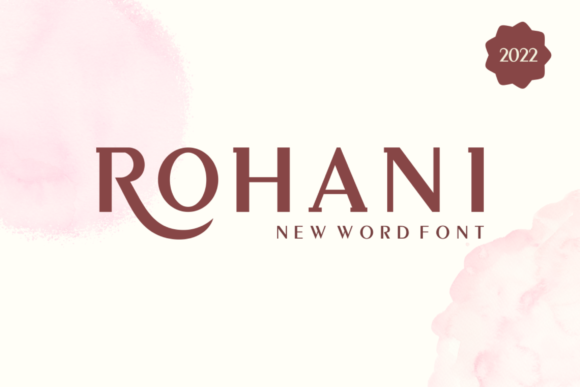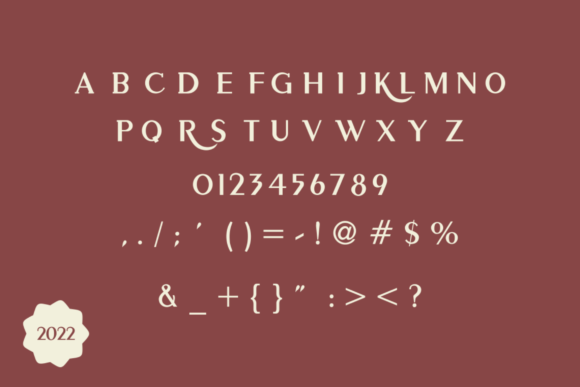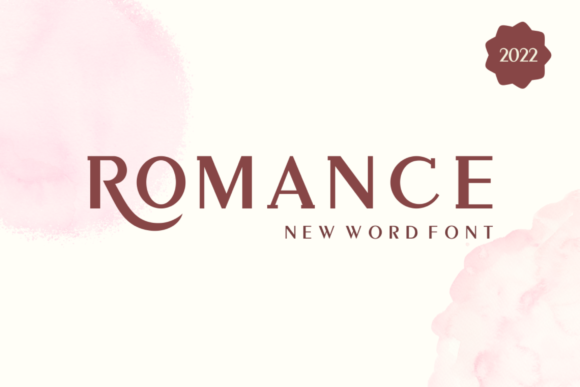
Introduction to Kunaroh Font
As designers, we’ve all been there – staring at a blank canvas, trying to conjure up the perfect combination of style and substance. But sometimes, it takes just the right design resource to bring our creative visions to life. For those moments, we’re excited to introduce the Kunaroh Font, a modern serif font that’s sure to elevate any project.
With its bold and authentic style, the Kunaroh Font is the perfect addition to any branding project, from logos to t-shirt printing and beyond. Its versatility and high-quality design make it an ideal choice for designers looking to add a touch of sophistication to their work. Whether you’re working on a creative project or just need a reliable design tool, the Kunaroh Font is an invaluable resource that’s sure to deliver.
Key Features of Kunaroh Font
- High-quality, elegant design ideal for creative projects and design resources.
- Designed with a modern aesthetic, featuring clean lines and subtle nuances.
- Perfect for use in logos, typography, and other design elements where a sophisticated look is desired.
Honest Review: Kunaroh Font
I recently stumbled upon the Kunaroh Font, and I must say, it’s been a game-changer for my creative projects. This font is a great addition to any design resource, offering a unique blend of elegance and sophistication.
- ✨ High-quality design that’s perfect for various creative projects
- ✨ A wide range of glyphs and characters to choose from
- ✨ Transparent background, making it easy to work with
However, there are a few limitations I’ve encountered:
- ⚠️ Limited font styles available, which might not suit all design needs
- ⚠️ Not all glyphs are available in bold or italic styles
Overall, I’m impressed with the Kunaroh Font. Its high-quality design and free download make it an excellent choice for designers. While it may not offer the most extensive font library, it’s a solid addition to any design resource.
Kunaroh Font
Tips for Getting the Most Out of Kunaroh Font
To get the most out of the Kunaroh Font, use it with a transparent background to create a seamless design. You can also experiment with different font sizes and colors to create a unique look.
The Kunaroh Font is perfect for various creative projects such as graphic design, digital art, and typography. You can use it to create logos, posters, and other visual elements that require a high-quality font.